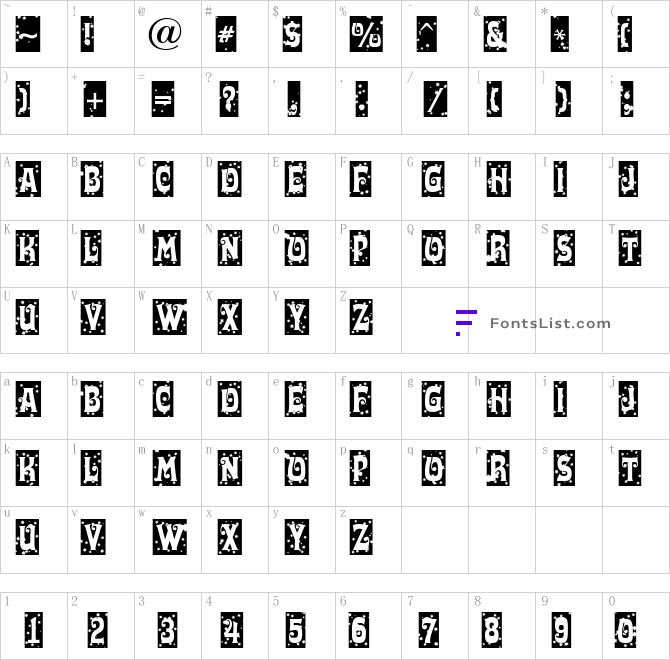
a_LuggerCmStNt.ttf is a very beautiful artistic font, a_LuggerCmStNt.ttf is widely used in the design and printing of various books and pictures,a_LuggerCmStNt.ttf has a strong visual impact,a_LuggerCmStNt.ttf is a commonly used font in newspapers, magazines and books, and is used in posters, e-commerce Poster design, store design, logo design, font design and other fields.a_LuggerCmStNt.